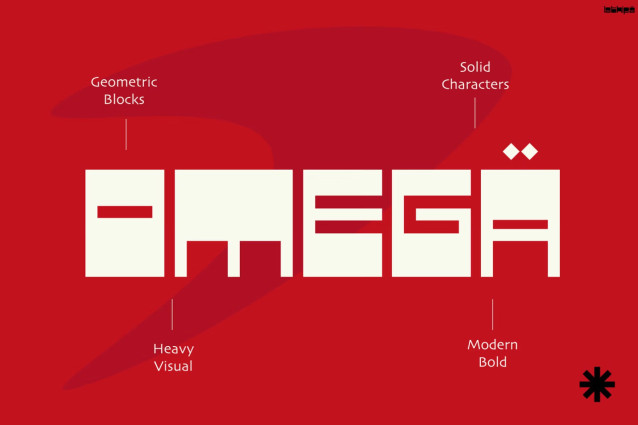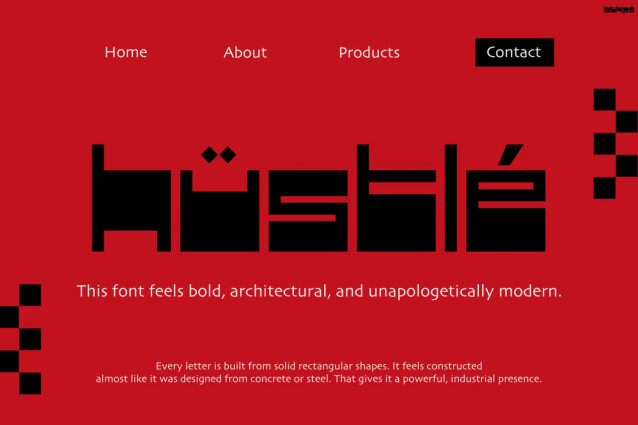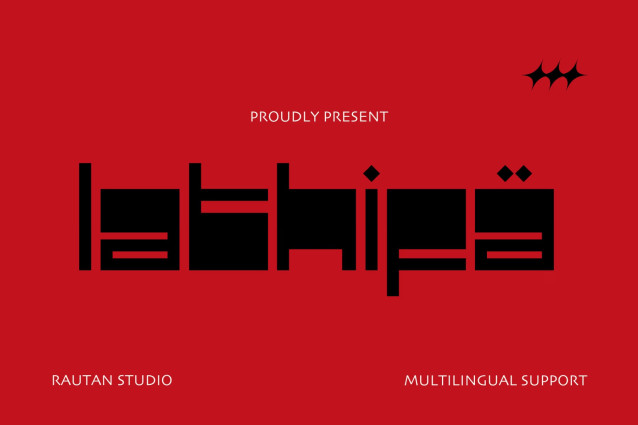
Lathifa Font
Lathifa Font is a heavy, architectural display font built from solid geometric blocks and brutalist shapes. Its ultra-bold, constructed letterforms create a powerful industrial presence, utilizing sharp corners and minimal negative space to maximize visual weight.
Best suited to high-impact applications, this typeface is a natural fit for music festival posters, streetwear apparel, brutalist editorial layouts, album covers, and gaming titles. Use it at large display sizes where its blocky, intentional structure can command the page.